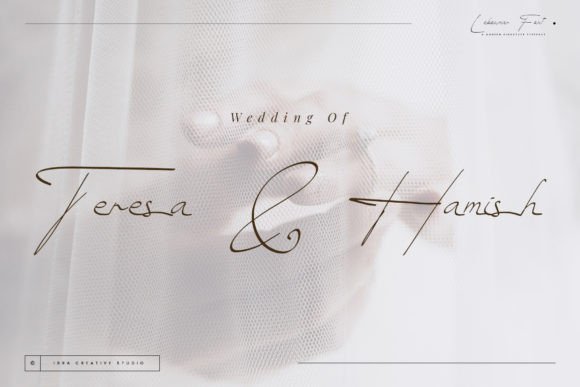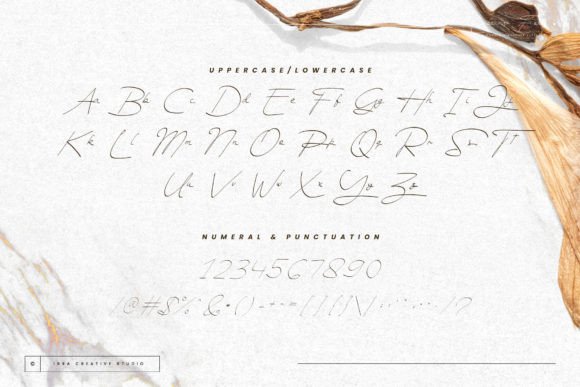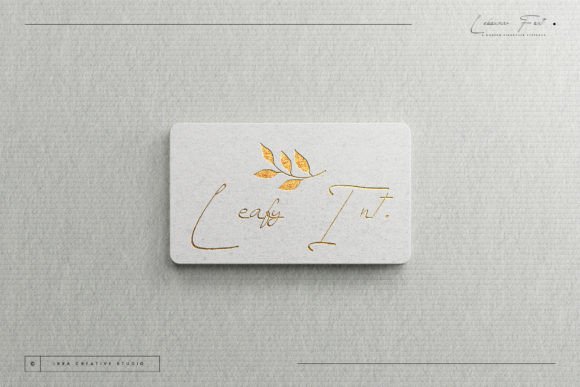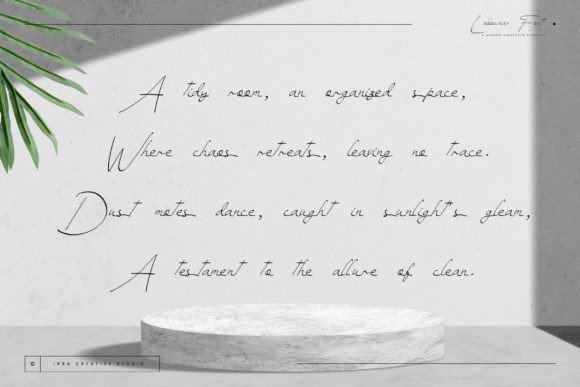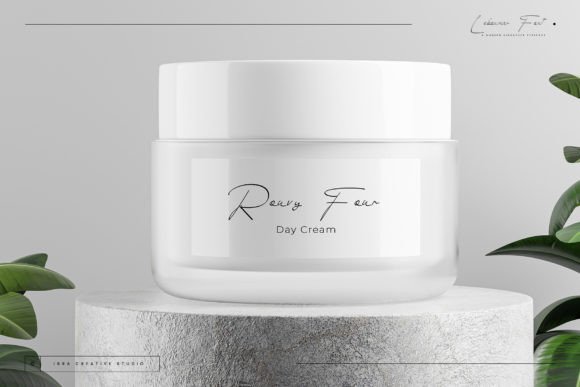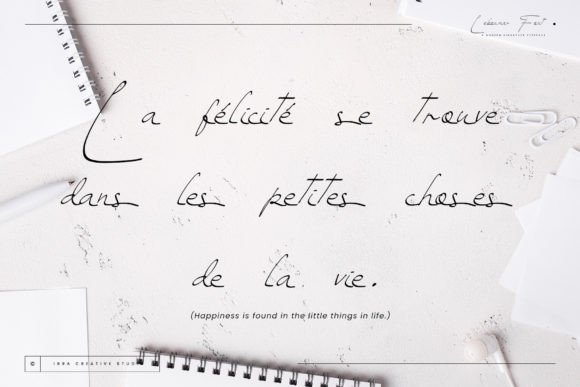
Introduction to Leboumar Font Font
Fonts play a crucial role in design, and the Leboumar Font font is a typeface that brings both character and versatility to any project. Whether you’re working on a branding project, a website, or a print design, the Leboumar Font font offers a unique style that can elevate your work.
Leboumar, a modern signature typeface, effortlessly merges contemporary aesthetics with the timeless elegance of handwritten script.
With fluid strokes and a dynamic rhythm, Leboumar captures the essence of individuality and sophistication Its sleek, yet expressive letterforms give a sense of personal touch, making it ideal for adding a touch of refinement to a variety of design projects.
The Leboumar Font font is more than just a typeface – it’s a design tool that helps you communicate your message with style and clarity. Its unique character set and versatile design make it suitable for a wide range of applications, from elegant invitations to bold headlines.
With its carefully crafted letterforms and balanced proportions, the Leboumar Font font ensures readability and visual appeal across all mediums.
The Leboumar Font font stands out with its unique design, exceptional readability, and versatility across various design applications.